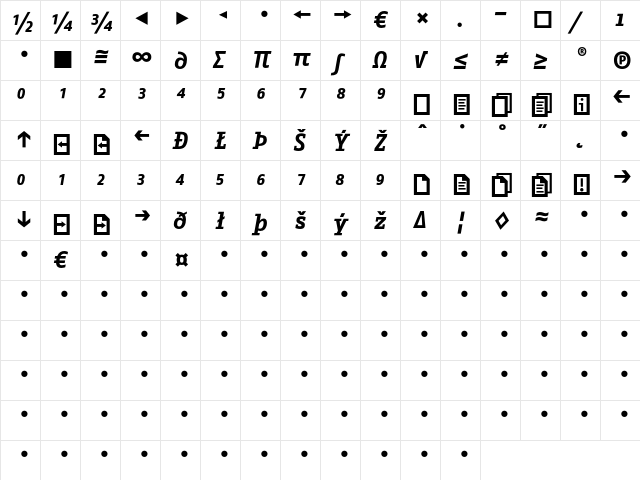
Fago Office Serif Bold Exp Italic
Design Context for Fago Office Serif Typeface
Fago Office Serif brings classic typographic sensibility to the table — its serifs and measured letterforms reflect centuries of print heritage. The dynamic lean of this cut emphasises speed and emphasis in any layout. Its bold stroke weight gives it real presence on the page.